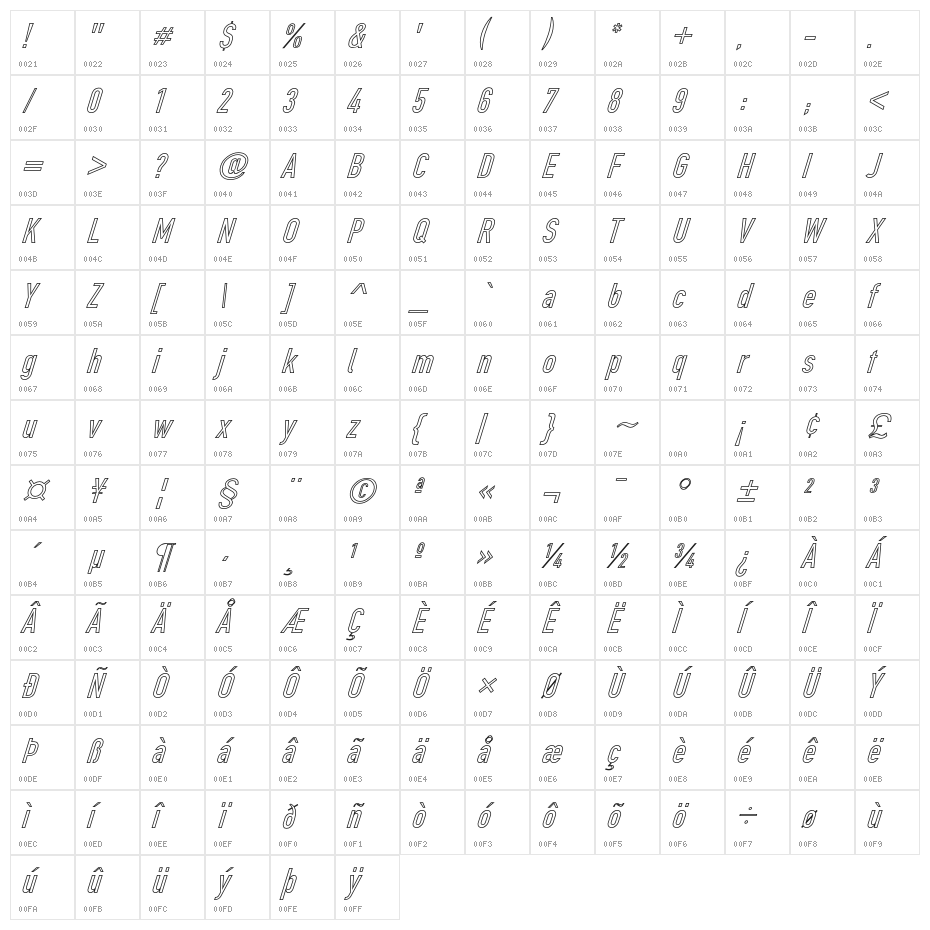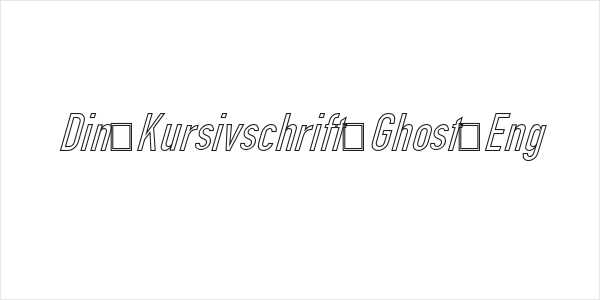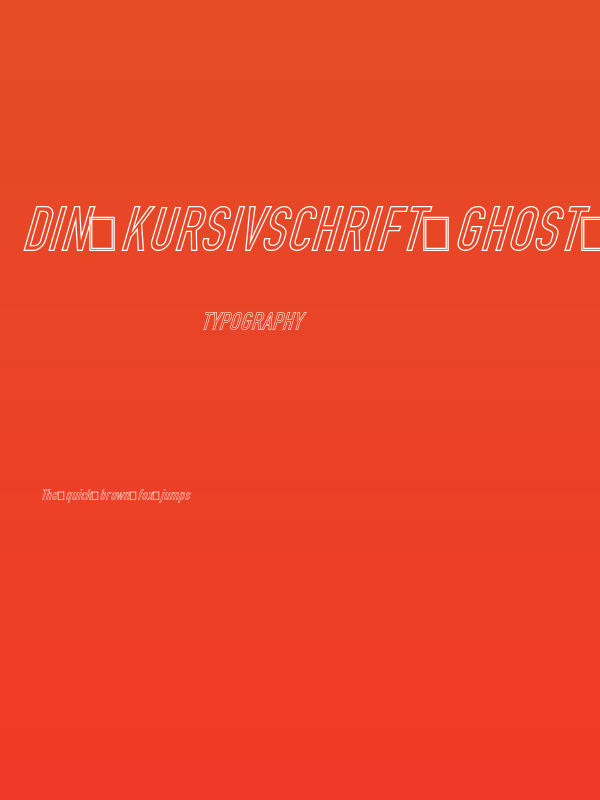
Din Kursivschrift Ghost Eng Font
Din Kursivschrift Ghost Eng Description
This font features a modern, italicized design with a distinct outline style, giving it a ghostly, ethereal appearance. The characters are well-proportioned, with a consistent slant that adds dynamism and movement. The uppercase and lowercase letters maintain a uniform height, contributing to a cohesive look. The numerals and special characters follow the same stylistic cues, ensuring versatility across different uses. The font's open structure and clear lines make it suitable for various design applications, offering a unique twist on traditional italic fonts.